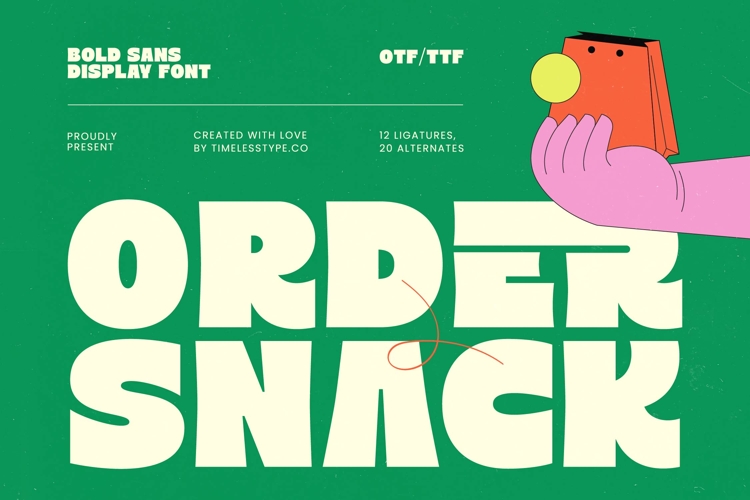
Order Snack - Bold Sans Display Font
Make an unforgettable statement with Order Snack - Bold Sans Display Font, a truly distinctive and bold sans serif display that instantly commands attention. This font embodies a vibrant, modern aesthetic, perfect for designs conveying energy and approachability. Its substantial weight and clean-cut terminals ensure maximum legibility and visual impact across all mediums, making it ideal for high-impact branding and memorable headlines.
Crafted with meticulous attention to detail, Order Snack - Bold Sans Display Font features a harmonious balance of playful curves and solid structure, creating an exceptionally engaging visual language. With its rich set of 12 ligatures and 20 alternates, this font offers unparalleled creative flexibility and customization options, allowing designers to inject personality and unique flair into every project. It’s a versatile tool designed to elevate your creative output.
Unlock unparalleled creative potential for your projects; Order Snack - Bold Sans Display Font is perfect for dynamic branding, attractive packaging, catchy headlines, social media campaigns, and food & beverage marketing. Its friendly yet bold character suits children's products, event posters, and any material requiring a memorable and approachable voice. With its extensive multilingual support, Order Snack - Bold Sans Display Font adapts seamlessly across global markets, making it incredibly versatile for international projects.